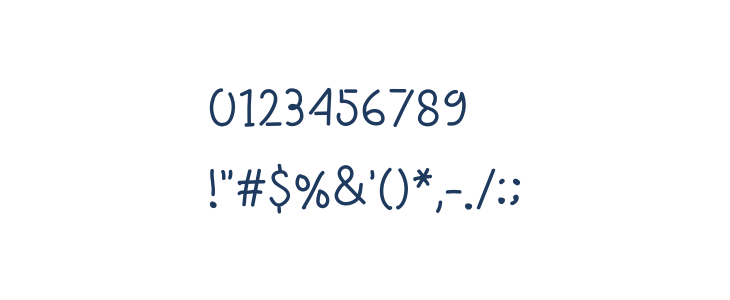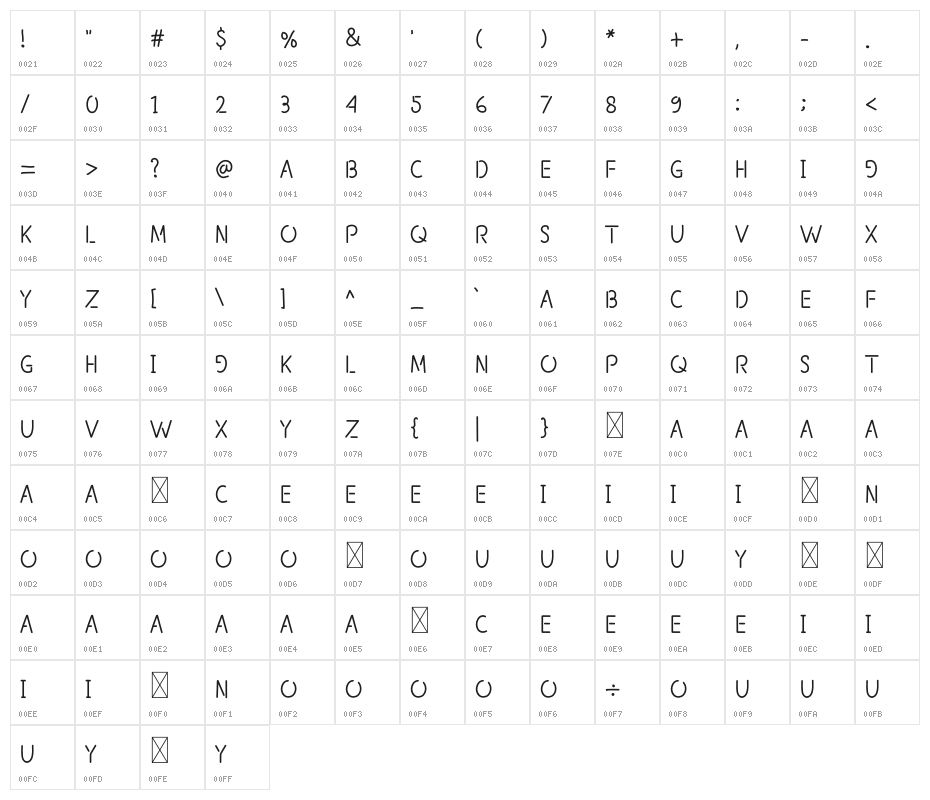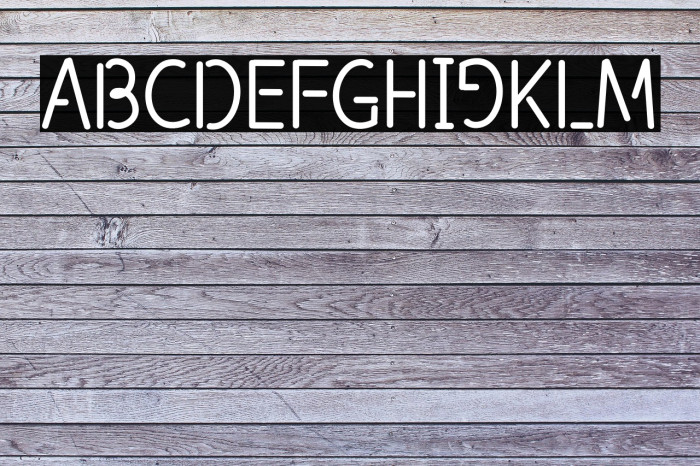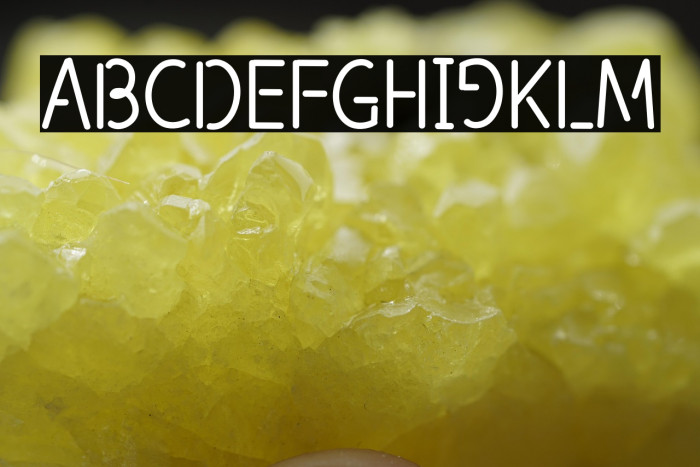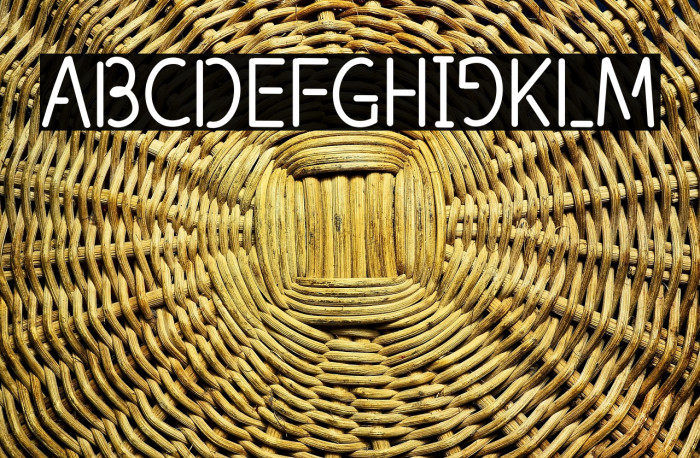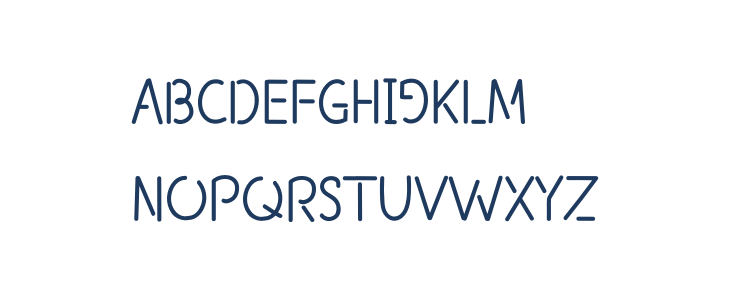
Electro Font
Electro Description
This font features a modern, geometric style with clean lines and a futuristic feel. The characters are uniform in width, giving it a monospaced appearance, yet they maintain a distinct, rounded edge that softens the overall look. The uppercase and lowercase letters share a consistent height, enhancing readability and creating a cohesive visual flow. The numerals and special characters are designed to match the letterforms, ensuring a seamless integration across all text elements. This font's unique style makes it ideal for projects that require a contemporary and innovative touch.
| Use Case | Headlines, Logos, Digital interfaces |
| Proposed Projects | Ideal for tech branding, digital interfaces, and modern advertising campaigns. |